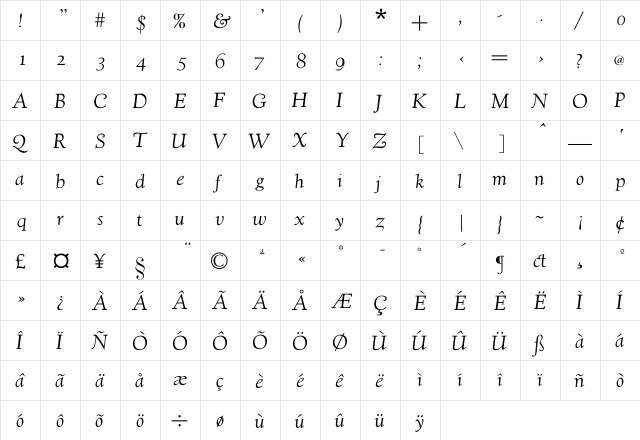
GoudyVillage ZH-Itali Font Preview
GoudyVillage ZH-Itali
Design Context for GoudyVillage Typeface
GoudyVillage offers clean, dependable letterforms without strong stylistic allegiance, making it a practical choice for designers who need flexibility.